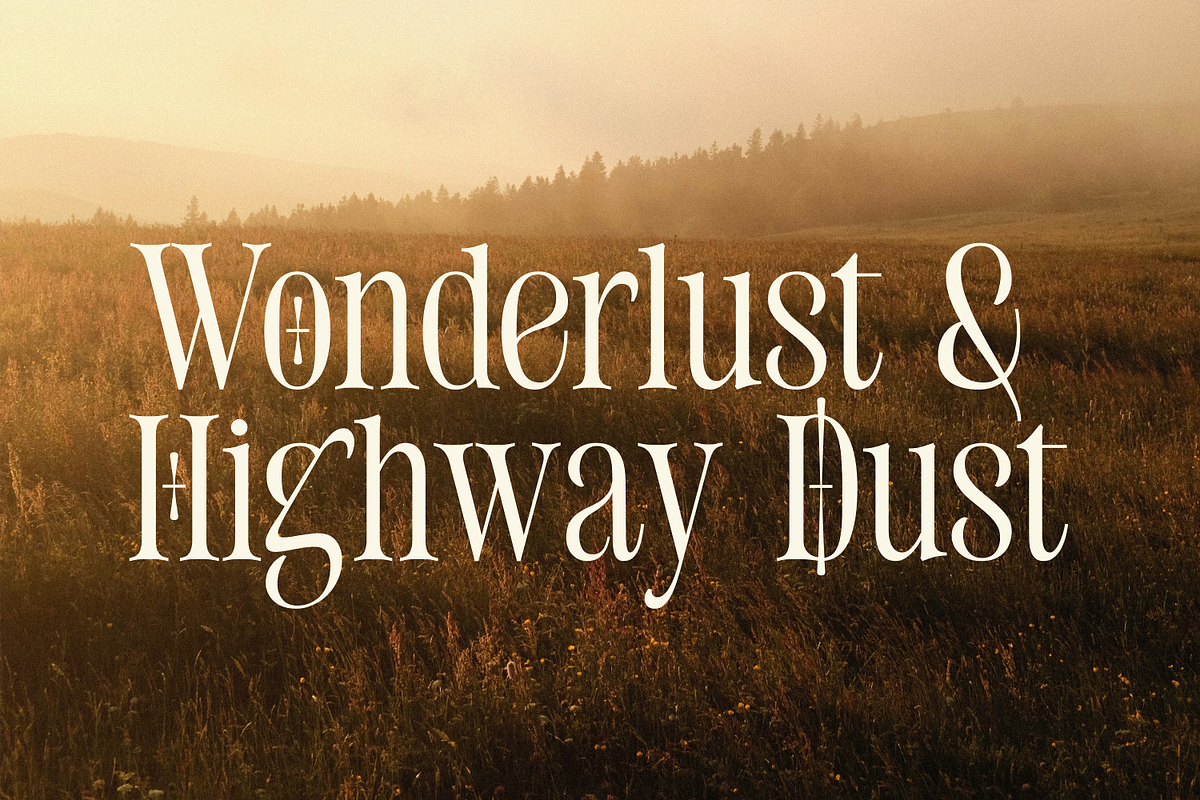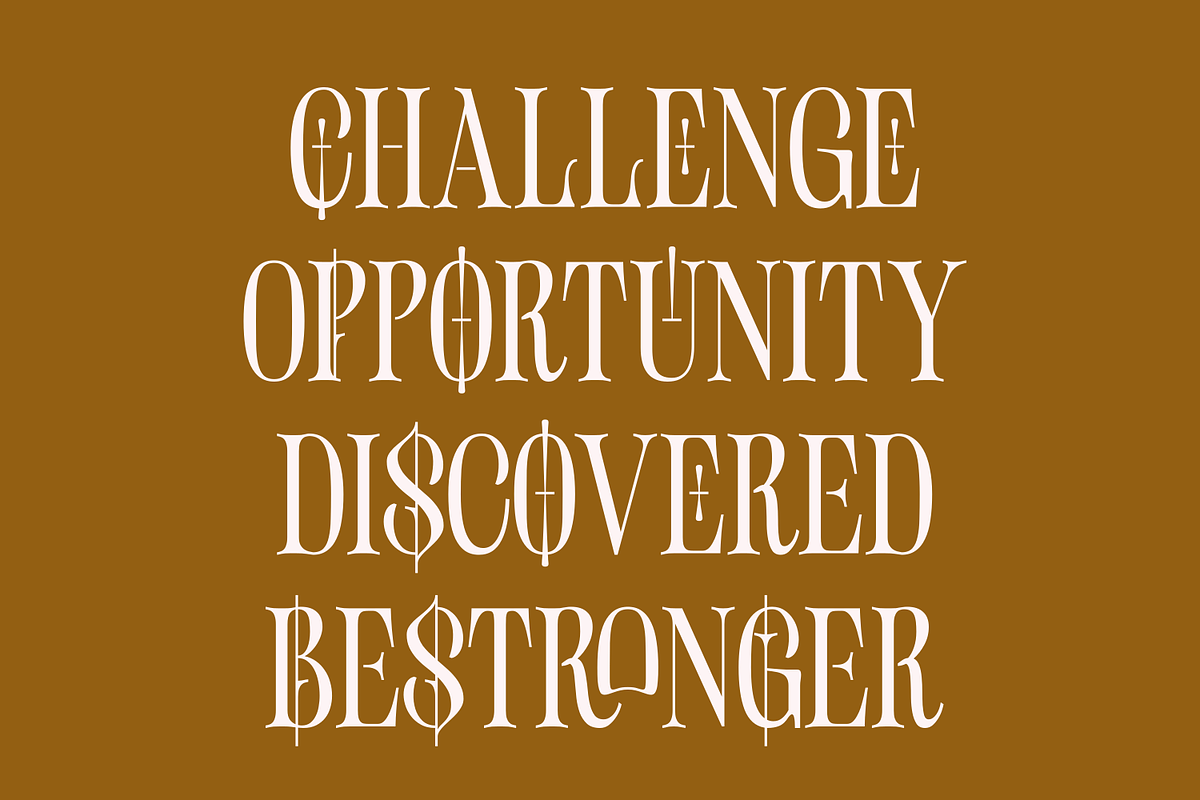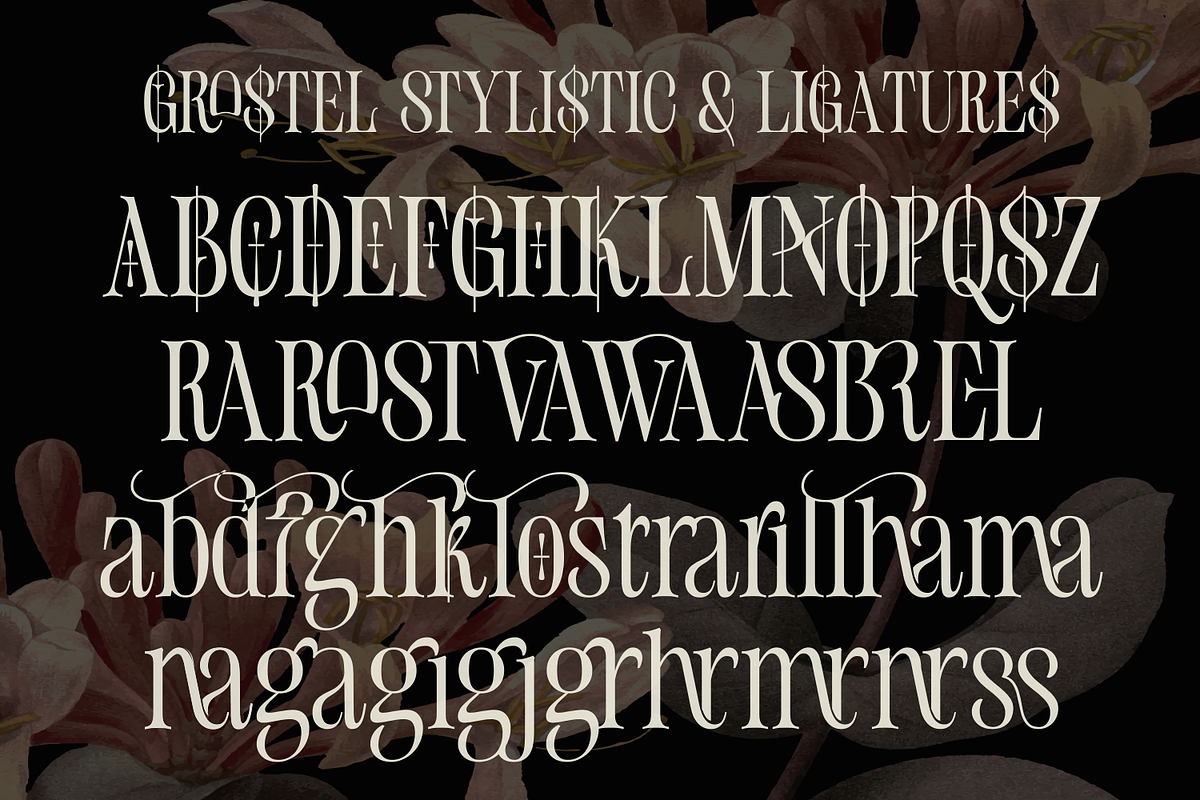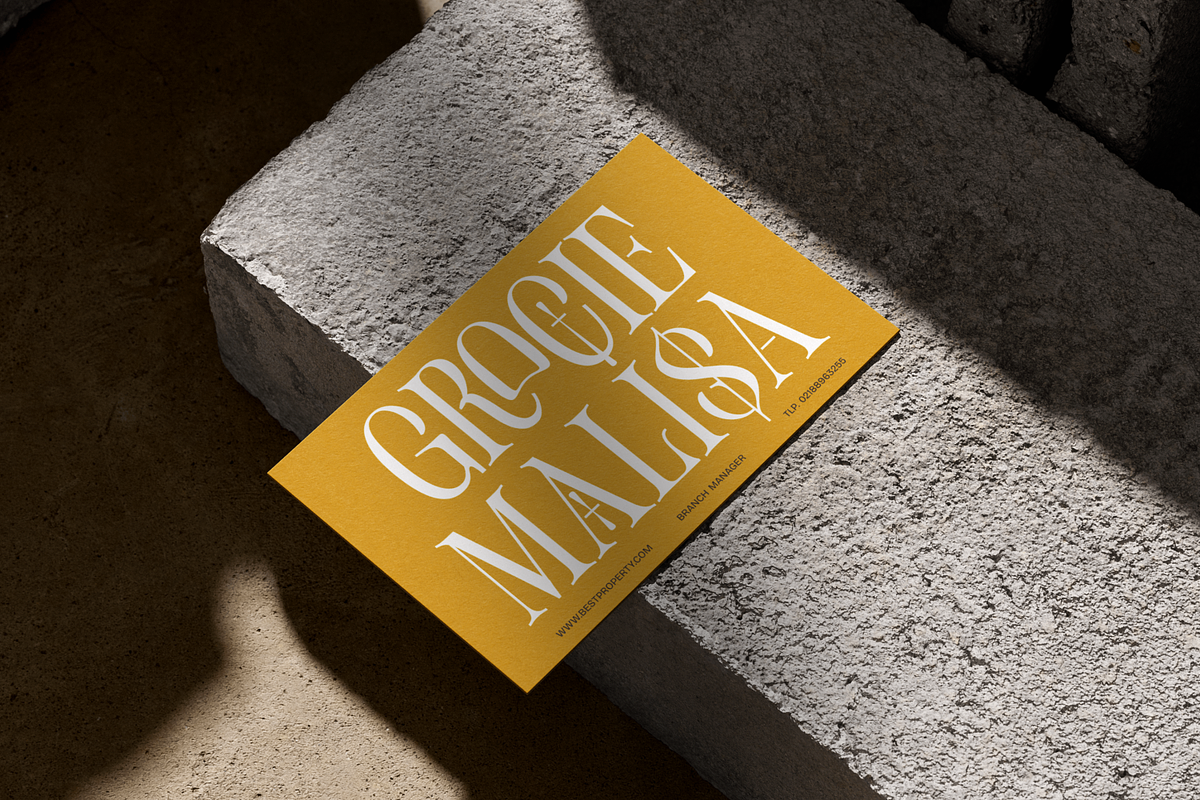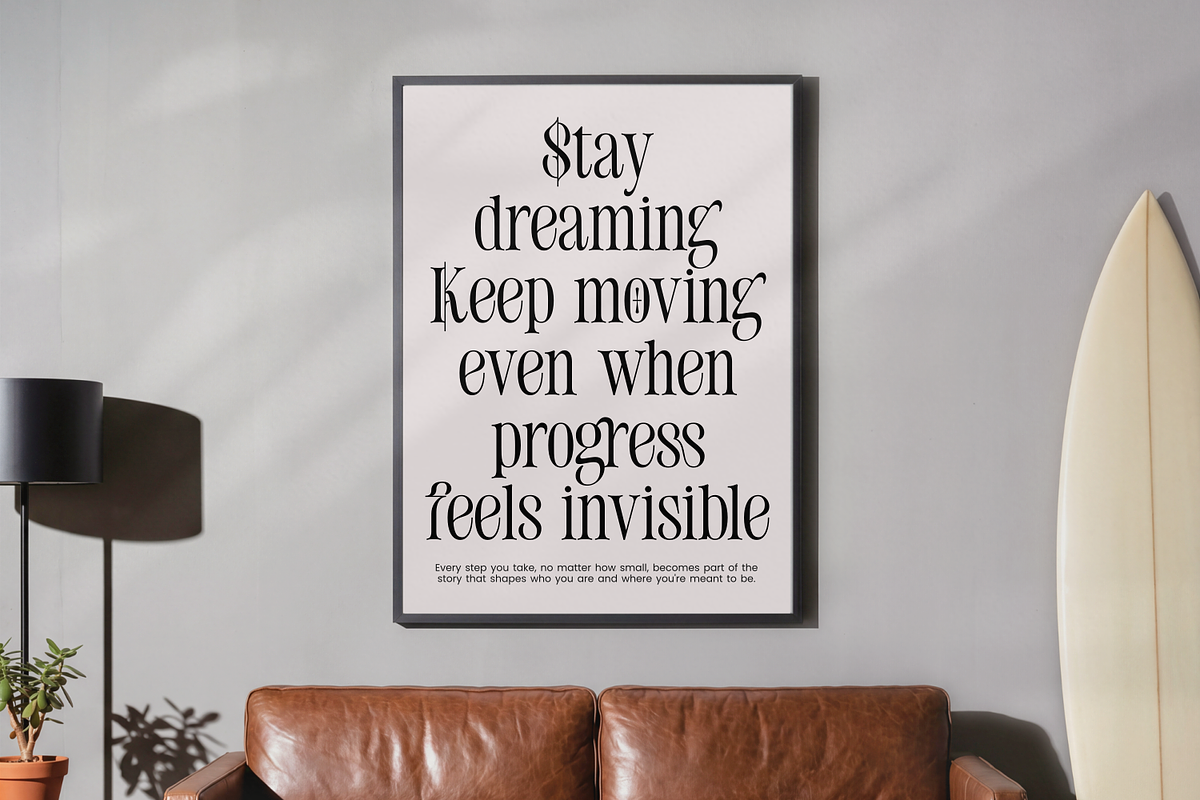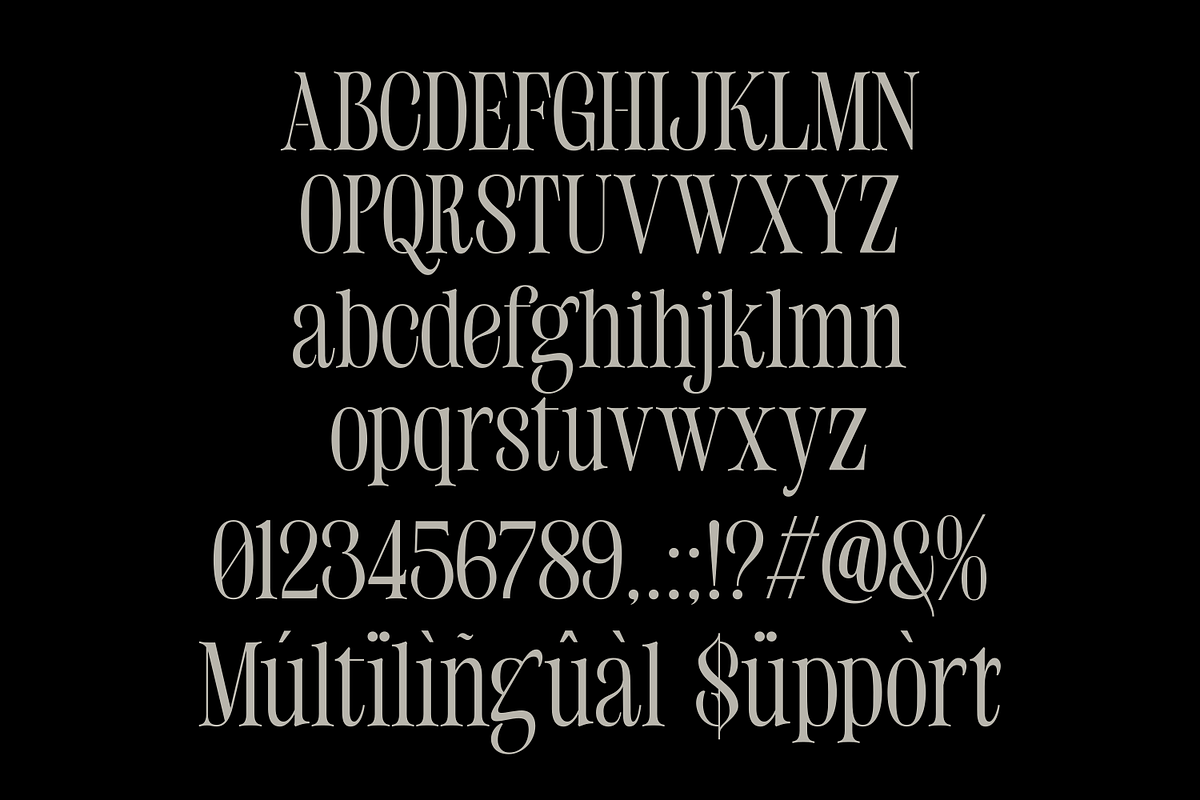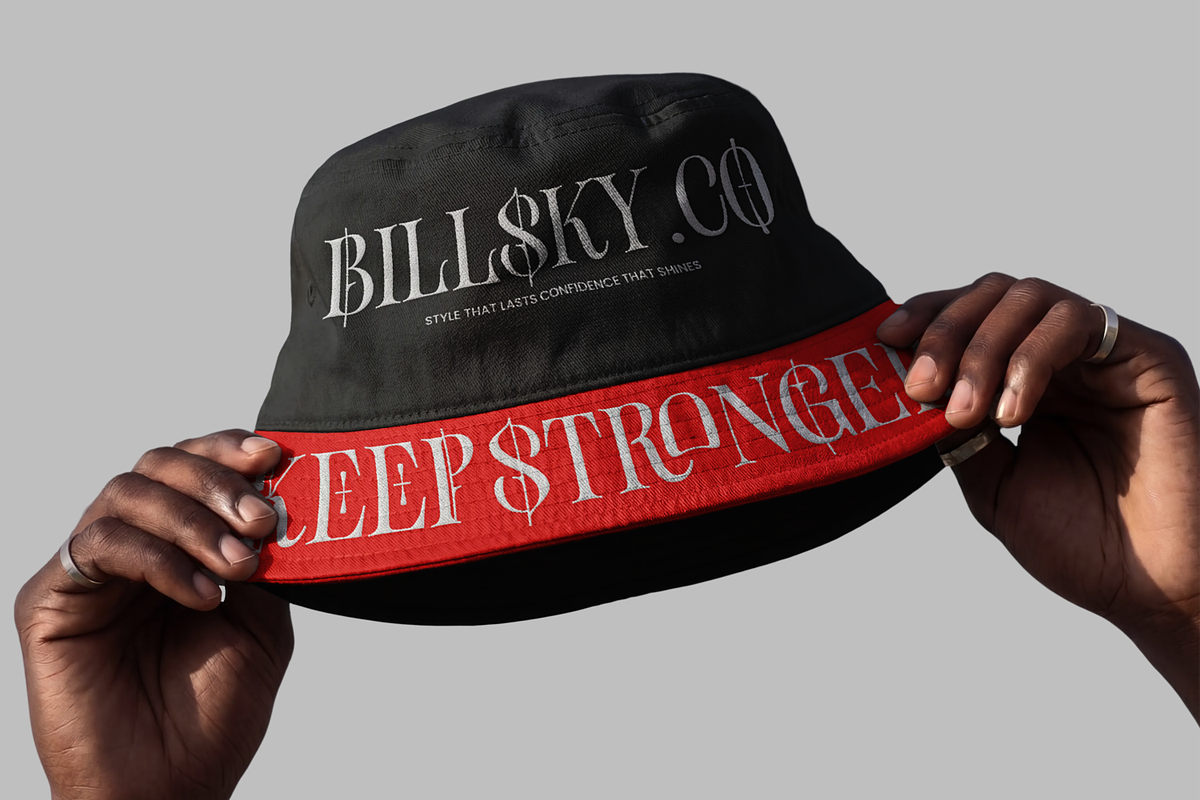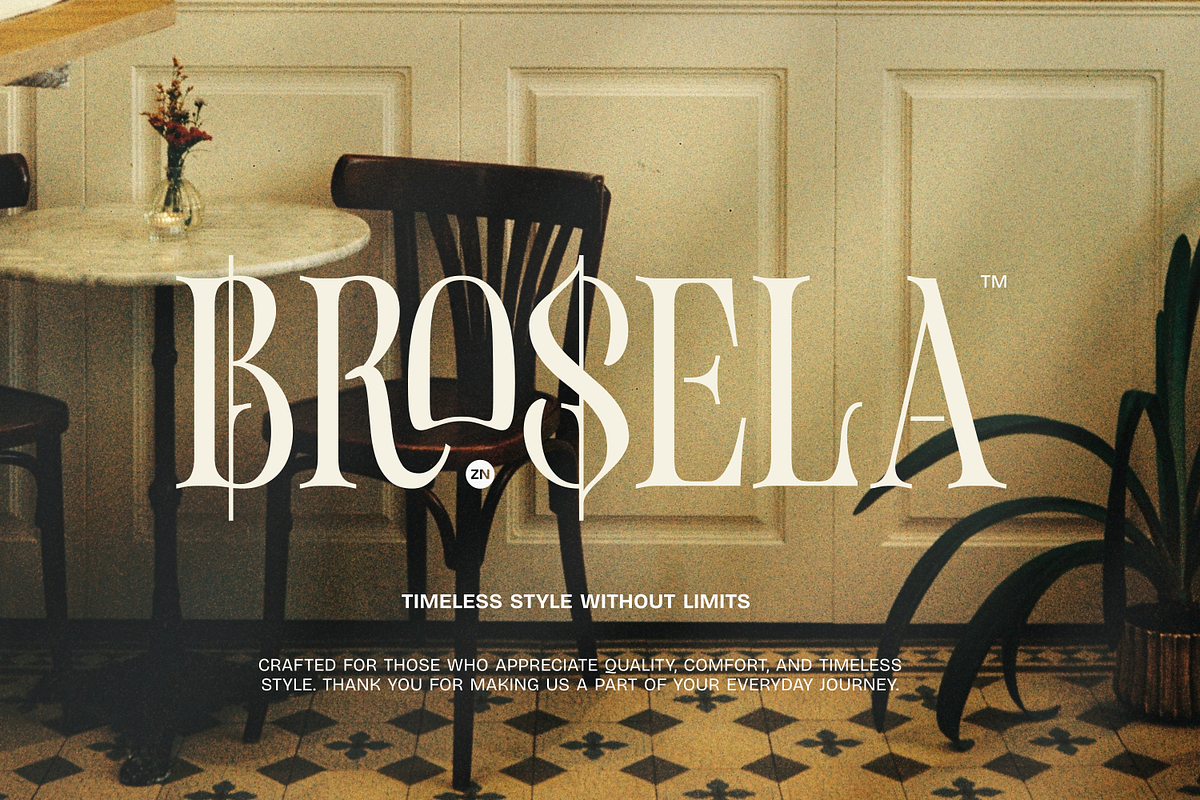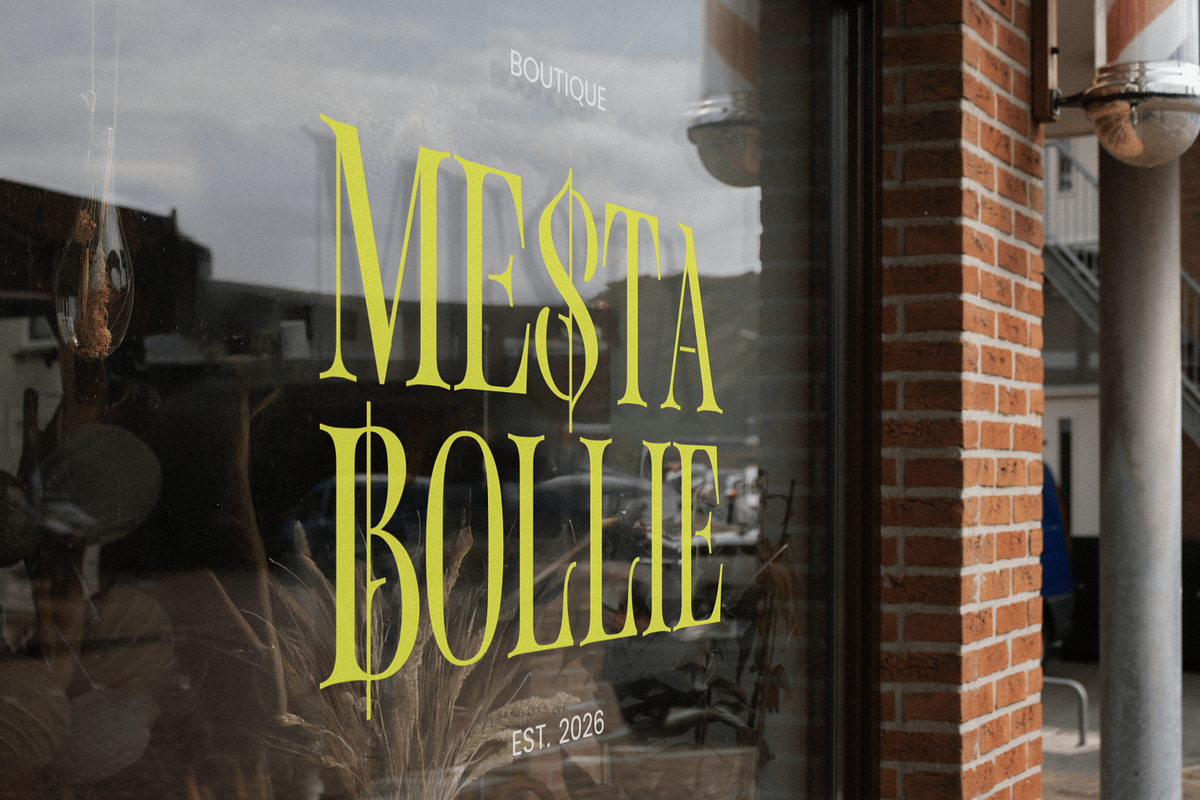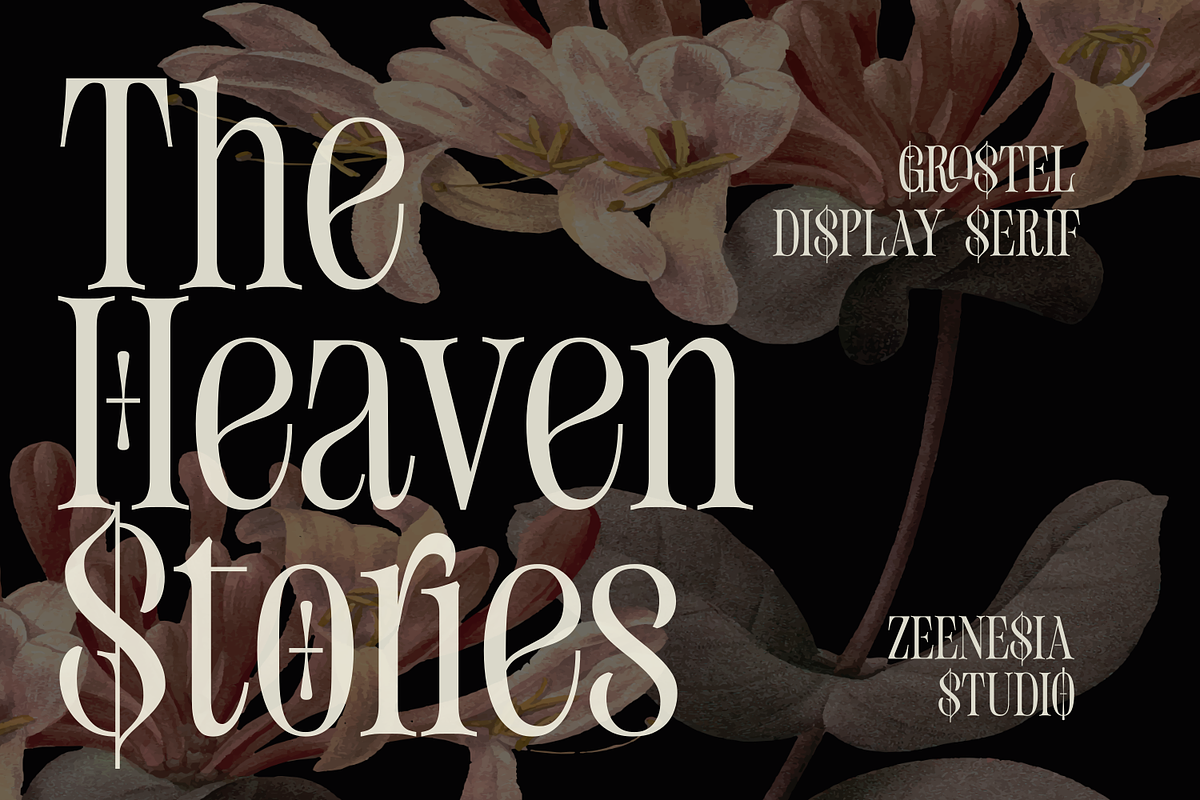
Grostel
Grostel – Classic Serif Font Collection Grostel is a timeless display serif that blends classic elegance with contemporary sophistication. Crafted with refined high-contrast strokes, graceful curves, and beautifully sculpted serifs, Grostel delivers a luxurious presence that instantly elevates any design. Inspired by traditional editorial typography and premium fashion branding, every letter has been carefully designed to create a distinctive visual identity. The collection also includes stylish alternate characters and elegant ligatures, allowing you to create unique and expressive typography with ease. Whether you're designing a luxury logo, editorial headline, cosmetic packaging, wedding stationery, or premium branding, Grostel offers the perfect balance between classic charm and modern aesthetics.
Standard glyphs, Ligature & Alternates